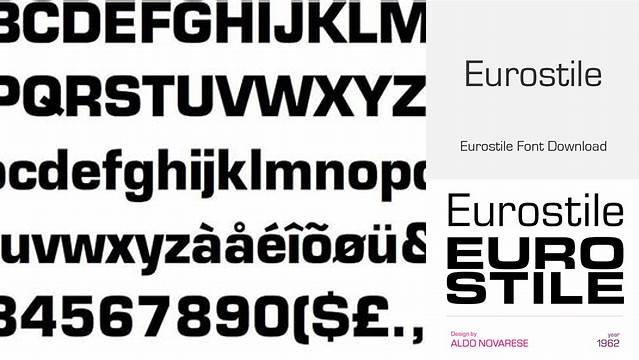
Eurostile Font Free Alternatives: Your Design Guide
Hey guys! Ever found yourself staring at a design, yearning for that sleek, geometric vibe that screams modernity? Chances are, you've been admiring the Eurostile font! This iconic typeface, with its bold, clean lines and unmistakable presence, has been a go-to for designers for decades. But what if you're on a budget or simply looking for something a little different? Fear not! In this article, we'll dive deep into the world of Eurostile font free alternatives, exploring fonts that capture the essence of Eurostile while offering their own unique flavors. We'll cover where to find these gems, what makes them tick, and how to choose the perfect one for your project. Get ready to elevate your designs without breaking the bank! We're going to explore the best Eurostile font alternatives.
Understanding the Eurostile Font: A Design Icon
Before we jump into alternatives, let's appreciate the star of the show: the Eurostile font. Designed by Aldo Novarese in 1962, Eurostile is a geometric sans-serif typeface. Its defining features are its uniform stroke weights, tall x-height, and distinctive, almost futuristic appearance. Think of it as the font equivalent of a minimalist masterpiece. It's a workhorse, and one of the most used fonts of all time. Its simplicity and legibility make it incredibly versatile, suitable for everything from headlines and logos to body text (though, let's be honest, it shines brightest in display applications). The font's association with technology, science, and a sense of forward-thinking design is undeniable. That's why it's so attractive! You've seen it on everything from movie posters and album covers to corporate branding and signage. Its strong, geometric shapes convey a sense of order, precision, and a touch of the avant-garde. However, using the original Eurostile can sometimes come with licensing costs. That's where the hunt for free alternatives begins! Also, there are several weights and styles available for the Eurostile font. So when you consider an alternative, you must consider this. The range of styles in Eurostile is amazing. Finding a font that encompasses all of the strengths of Eurostile will prove to be challenging.
Eurostile is more than just a font; it's a statement. It's the voice of the future, a whisper of innovation. That's what makes it so attractive to designers. This is why finding a good alternative is important, and we're going to explore all of the best ones. The Eurostile font has a strong presence, and it commands attention. Its clean lines and geometric forms give it a timeless appeal. Whether you're a seasoned designer or just starting out, understanding Eurostile and its alternatives is a valuable skill. It expands your creative toolkit and empowers you to make informed decisions. So, let's equip ourselves with the knowledge to conquer the design world, one font at a time! Remember that it is critical to find a font that captures the feel of Eurostile. There are lots of options, but only a few will provide a great alternative.
Key Features to Look for in Eurostile Alternatives
Alright, let's get down to the nitty-gritty. What exactly should you look for when searching for Eurostile font free alternatives? After all, it's not just about finding a font that looks vaguely similar; it's about capturing the essence of Eurostile. Here are some key features to keep in mind during your font quest:
- Geometric Sans-Serif Structure: This is the heart of Eurostile. Look for fonts with clean, geometric letterforms, where the strokes have a consistent width. Avoid fonts that have a more organic or calligraphic feel. It's all about those straight lines and perfect circles, guys!
- Tall X-Height: The x-height refers to the height of the lowercase letters. Eurostile has a tall x-height, which contributes to its legibility and modern aesthetic. A taller x-height makes the font appear more open and readable, especially at smaller sizes.
- Uniform Stroke Weight: One of the defining characteristics of Eurostile is the consistent thickness of its strokes. This gives the font a strong, uniform appearance. Avoid fonts where the strokes vary significantly in width, as this will diminish the clean, geometric feel.
- Legibility: While style is important, don't sacrifice readability. Make sure the alternative font is easy to read, both in headlines and (if you plan to use it) body text. Test it out at different sizes and on different backgrounds to ensure optimal clarity.
- Character Set: Check the character set of the font to ensure it includes all the glyphs you need. This is especially important if you're working in multiple languages or need special characters.
- Availability of Weights and Styles: The Eurostile font family offers a variety of weights (light, regular, bold, etc.) and styles (italic, condensed, etc.). If possible, look for alternatives that also provide a range of weights and styles to give you more flexibility in your designs.
By keeping these features in mind, you'll be well-equipped to find the perfect Eurostile font free alternative that meets your design needs. Think of it as a checklist – if a font ticks most of the boxes, you're on the right track! Remember to consider the overall tone and mood of your project. The Eurostile font has a very distinct feel. The best alternatives will be similar. These are all very important characteristics for selecting the best font to use as an alternative. Take your time to find the perfect one.
Top Free Eurostile Font Alternatives
Now for the moment you've all been waiting for: the roundup of the top free Eurostile font alternatives! We've scoured the web to bring you a selection of fonts that capture the spirit of Eurostile while offering their own unique personalities. Let's dive in!
- League Gothic: This is a classic! League Gothic is a free, open-source font inspired by Gothic and a typeface called Alternate Gothic No. 1. It has a tall x-height, clean lines, and a strong geometric structure, making it a great alternative for headlines and display text. It's a solid choice if you are looking for a bold, impactful font. While not a perfect match for Eurostile, its bold presence and geometric forms certainly capture a similar aesthetic.
Conclusion: Unleash Your Design Potential
So there you have it, guys! A comprehensive guide to finding and using Eurostile font free alternatives. We've explored the key features to look for, the top free options available, and where to find them. We've also provided tips on how to use these fonts effectively to elevate your designs. Choosing a great font is the first step. Utilizing it properly is the next. Remember, the best font is the one that best communicates your message and aligns with your project's goals. With the knowledge and resources we've shared, you're well-equipped to embark on your font journey and create designs that are both visually stunning and incredibly effective. So, go forth and unleash your design potential! Embrace the power of typography, experiment with different fonts, and most importantly, have fun. The design world is your oyster!